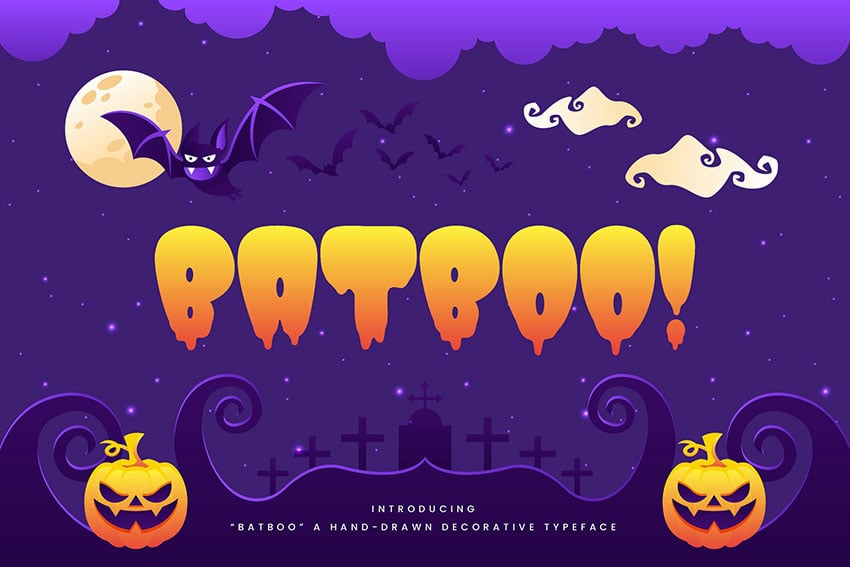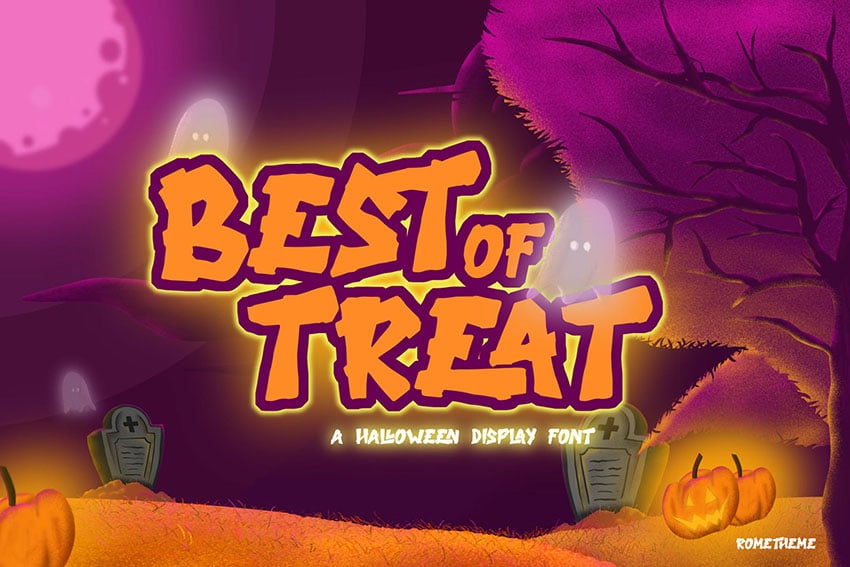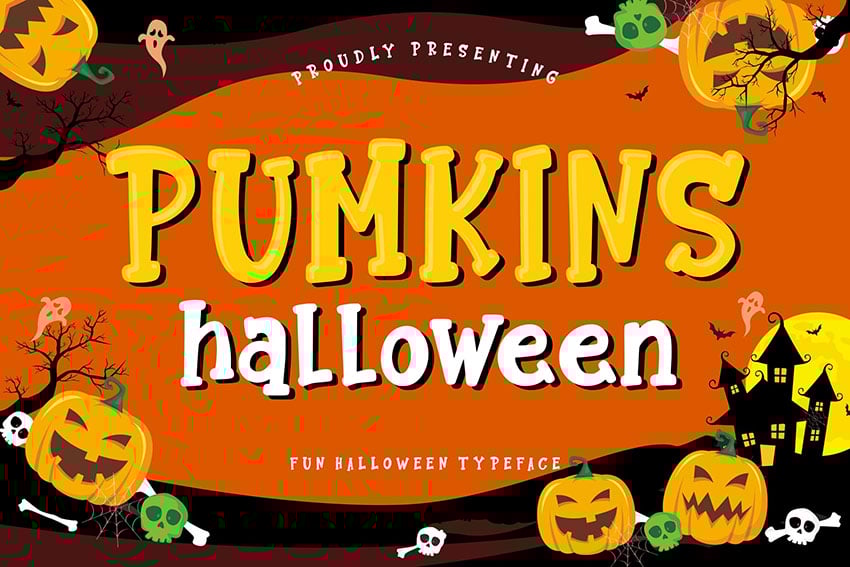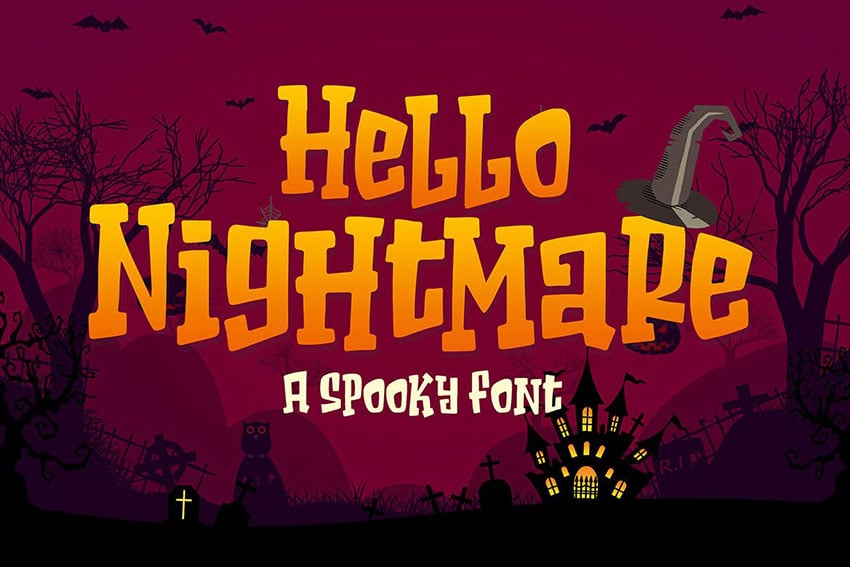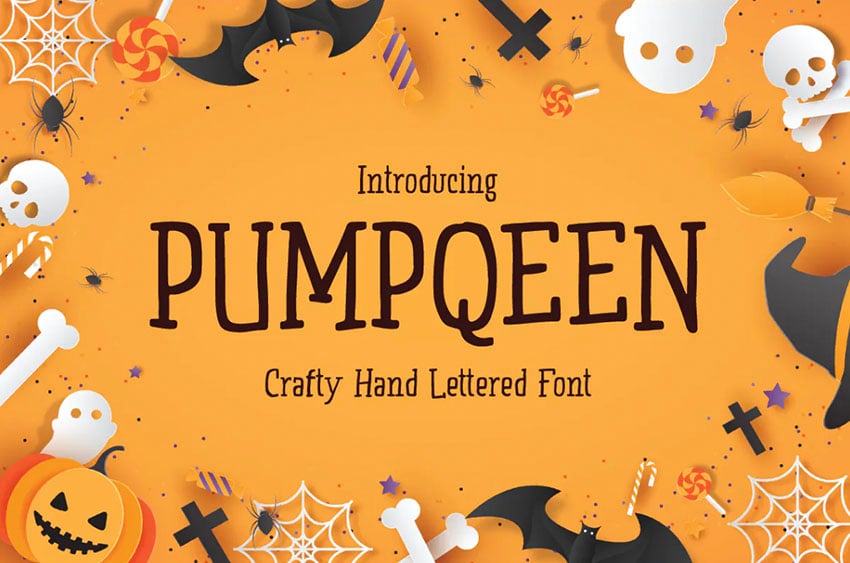
Check out these amazing, spooky, and cute Halloween fonts you can download right now.
Halloween T-shirts are such a fun concept, right? Stick on a spooky saying or maybe even make a silly T-shirt costume for an easy Halloween outfit. The right Halloween font can give your project just the right touch.
How about making some cute Halloween invitations with your Cricut machine? Or use your Cricut machine to cut out cute holiday stickers—and then stick them onto treat bags! This could work great for birthday parties and other special occasions too.
If you're looking for extra inspiration, why not try out a Cricut Halloween SVG file design, like this one? Try it out on a T-shirt, a mug, or maybe even a mini-poster to hang on your office door. Envato Elements also includes plenty of cute Cricut Halloween SVG files you can download and cut out today.
Here's more hocus pocus Cricut ideas, perfect for spooky handwriting or cute Halloween fonts. Where would you put your favorite Halloween design? How about window clings, or maybe making a custom hanging decor item for your front door? Maybe you could make halloween Cricut shirts, mugs, or even lounge pants!
You can keep things chill and seasonal too—Halloween doesn't have to be spooky! Try out a fun tumbler for a loved one, just to share a seasonal smile. Halloween Cricut fonts are a great addition to your library because you can reuse them year after year. Many of them have the versatility to work well for other projects year-round!